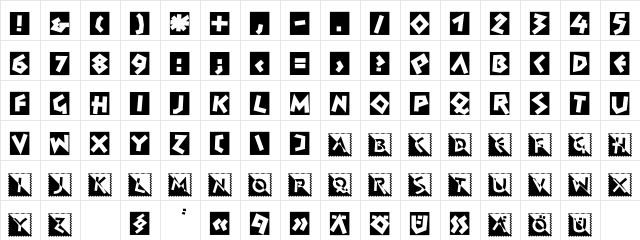
Spontan Initials
Style: Initials
Design Context for Spontan
Spontan is a composed and adaptable typeface that performs quietly and consistently across a wide range of design contexts.